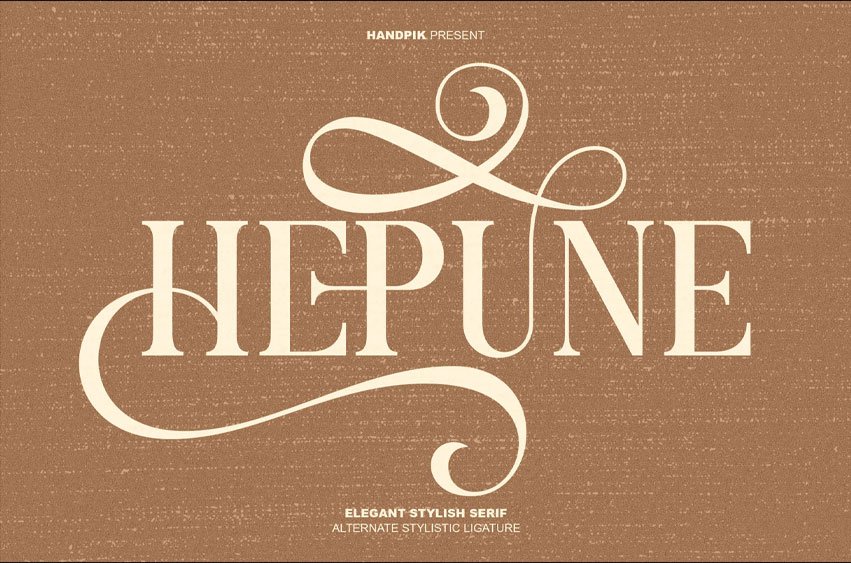
Hepune Font will be perfect for many projects: books, magazines, logos, branding, photography, quotes, blog headers, posters, advertisements, etc.
Hepune Font Preview